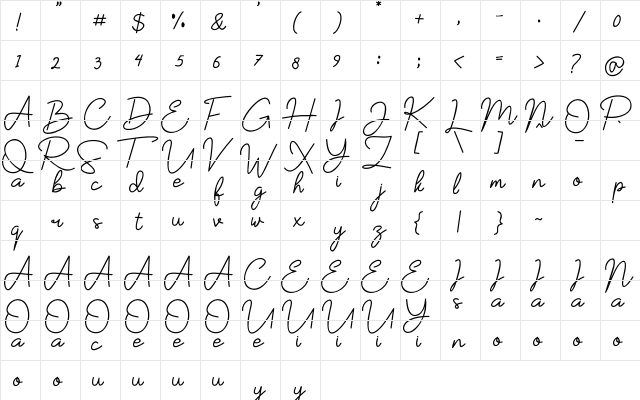
Yesie Regular
| Foundry | Putracetol Studio |
| Designer | PutraCetol |
Design Context for Yesie Typeface
Yesie is a composed and adaptable typeface that performs quietly and consistently across a wide range of design contexts.